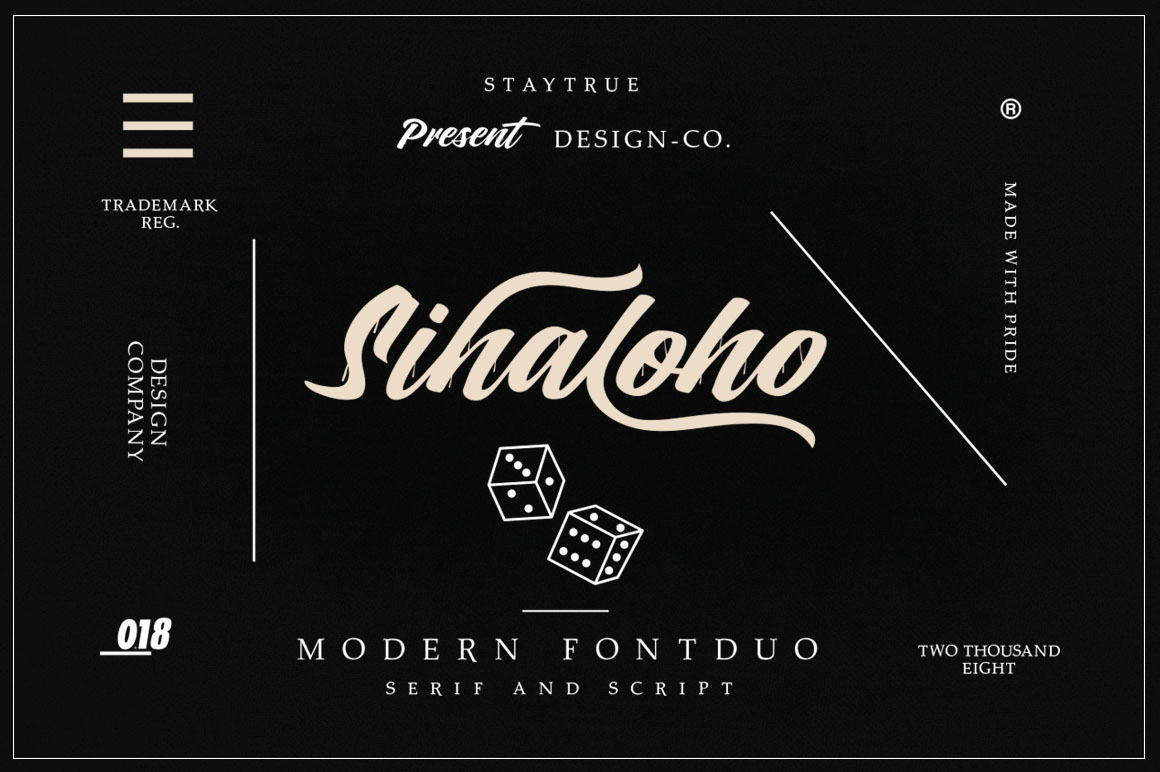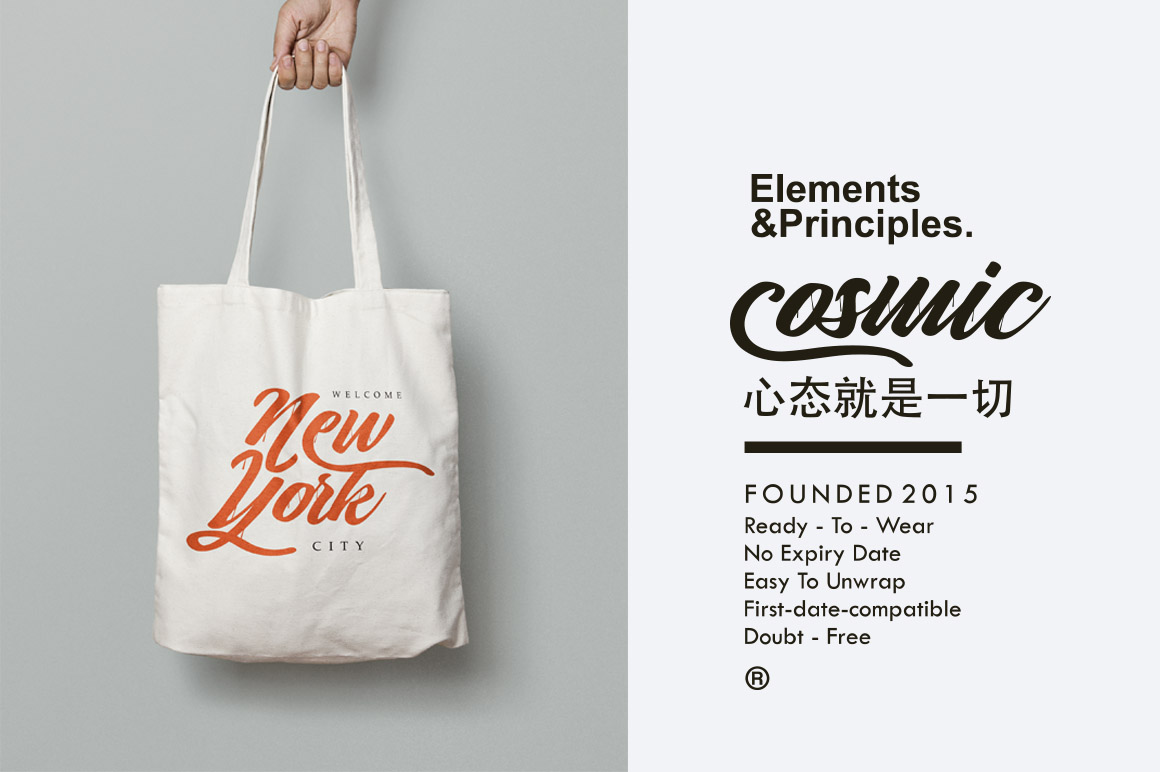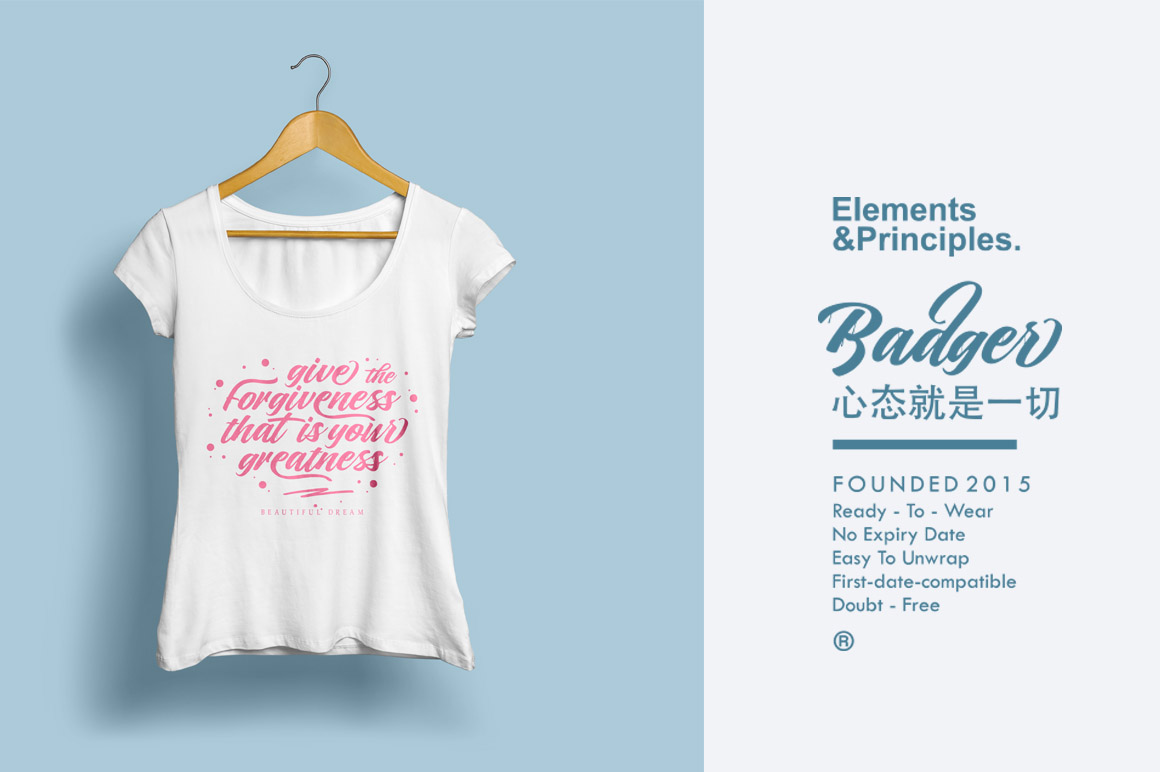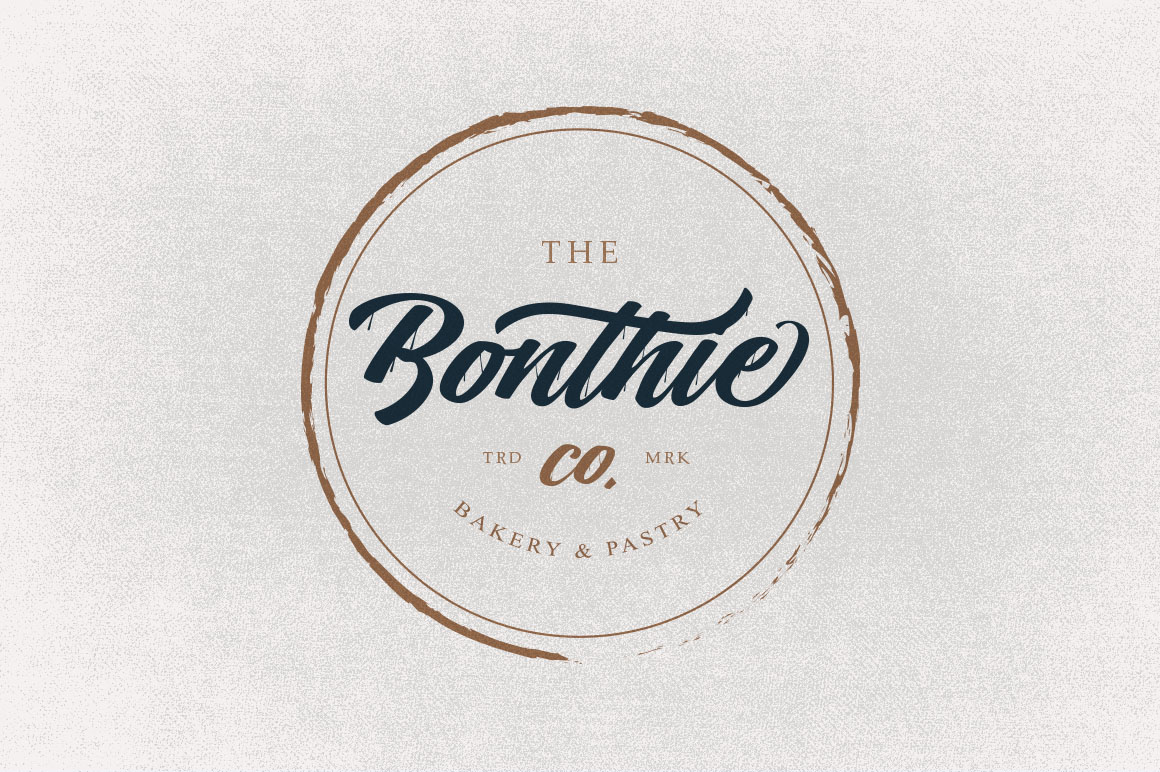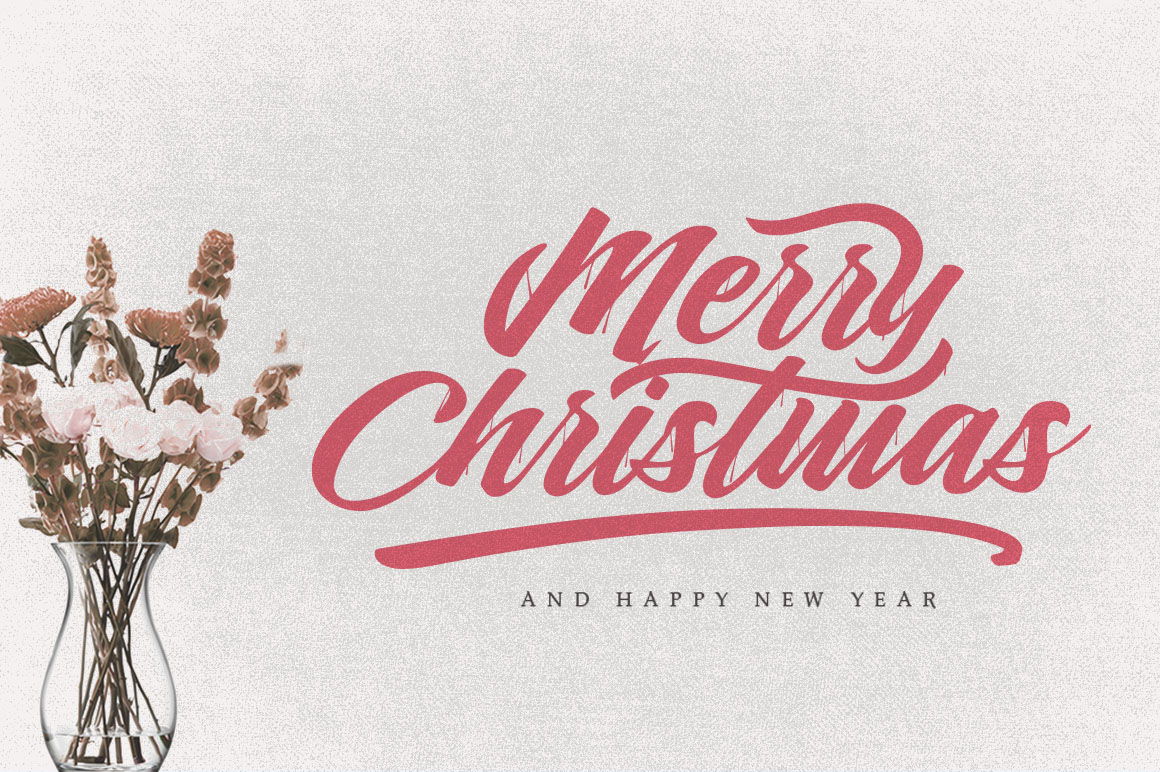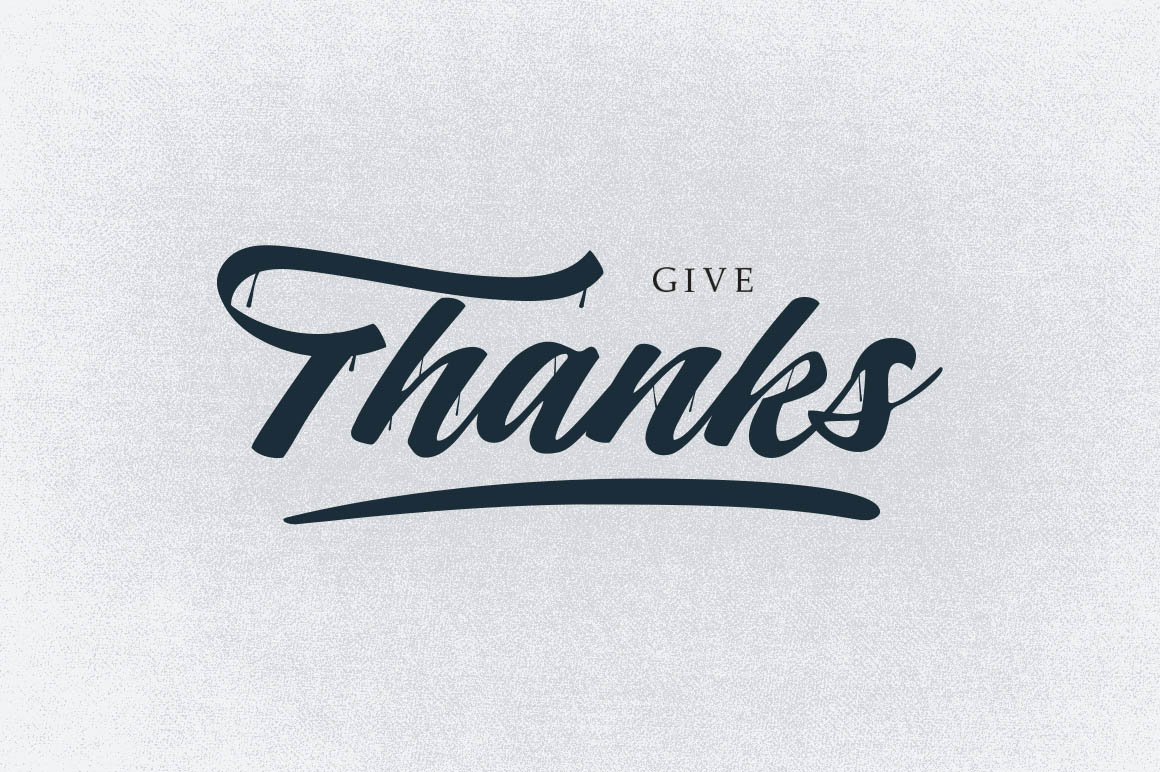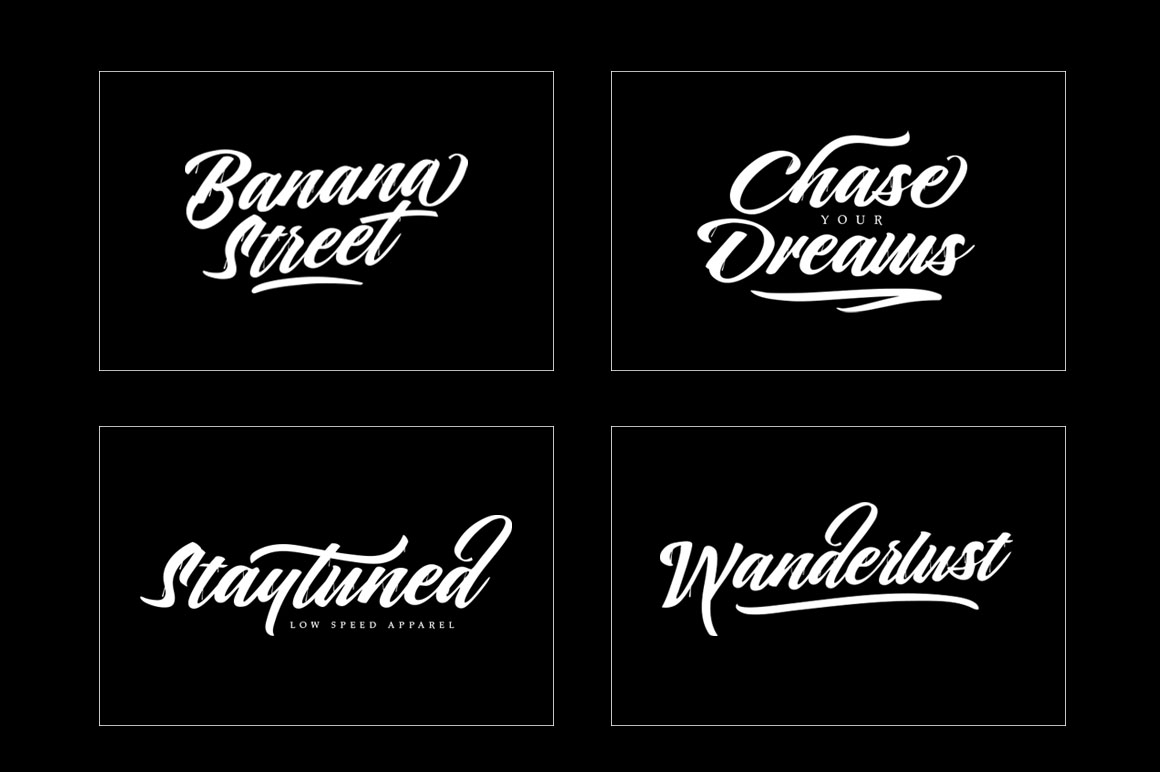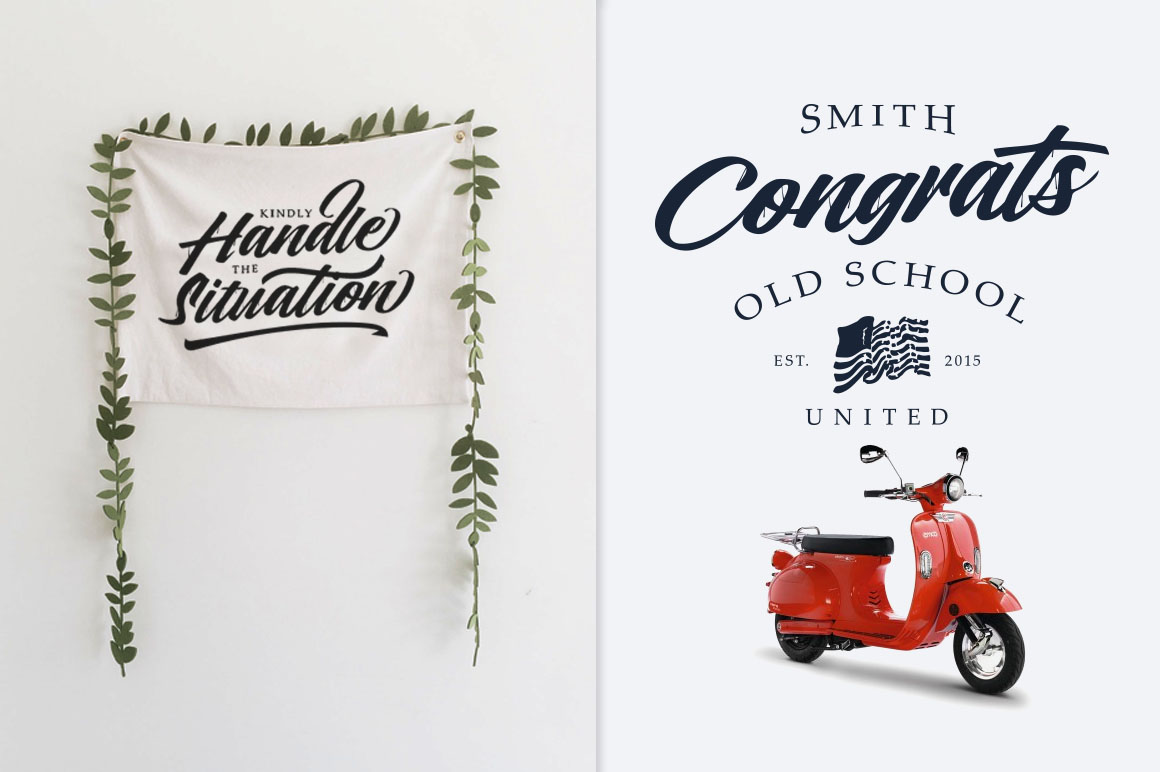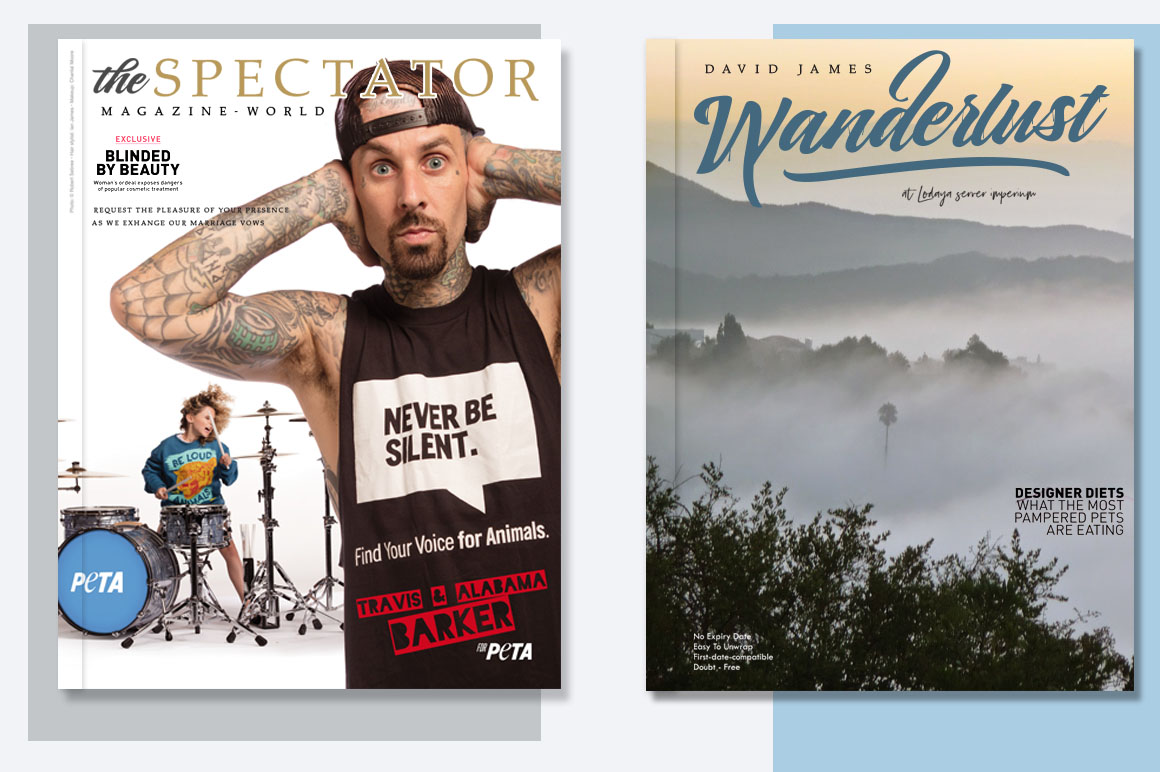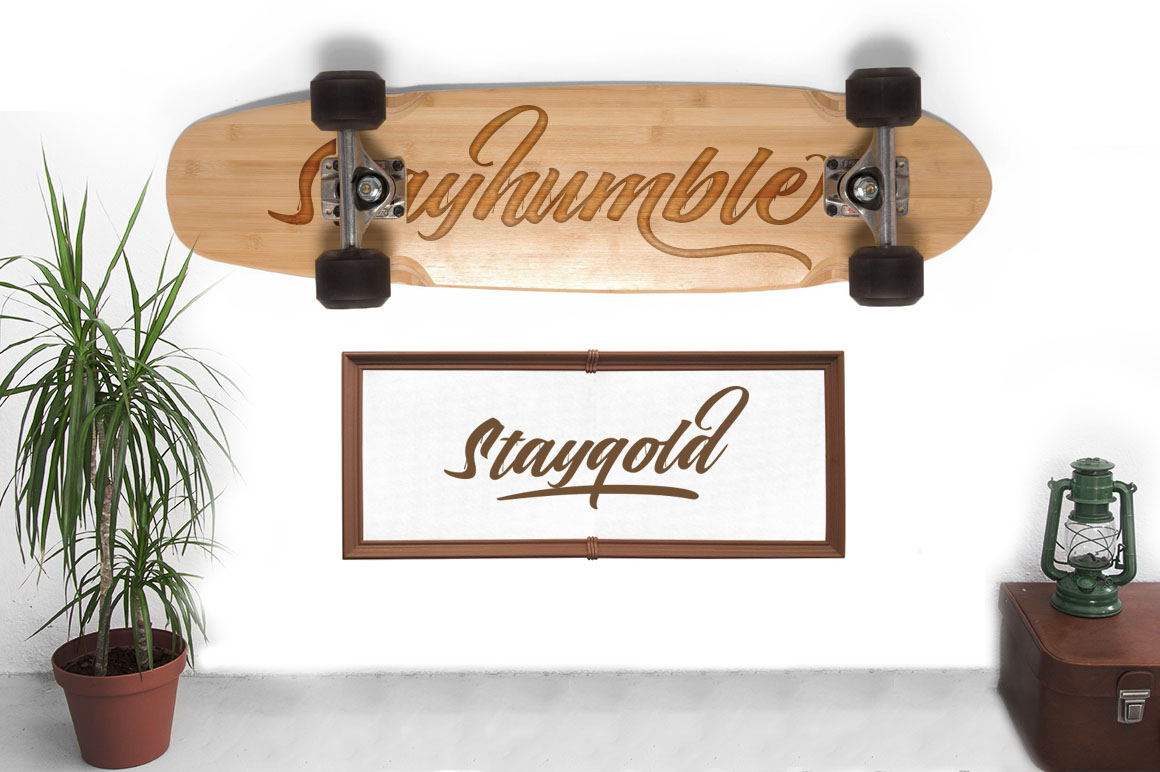
Sihaloho Font
About Sihaloho Font
Sihaloho is a gorgeous font duo, perfect for use in a wide range of project types! These fonts, script and serif, are bold and clean, and offer tons of variety and taste. This download comes with extras!